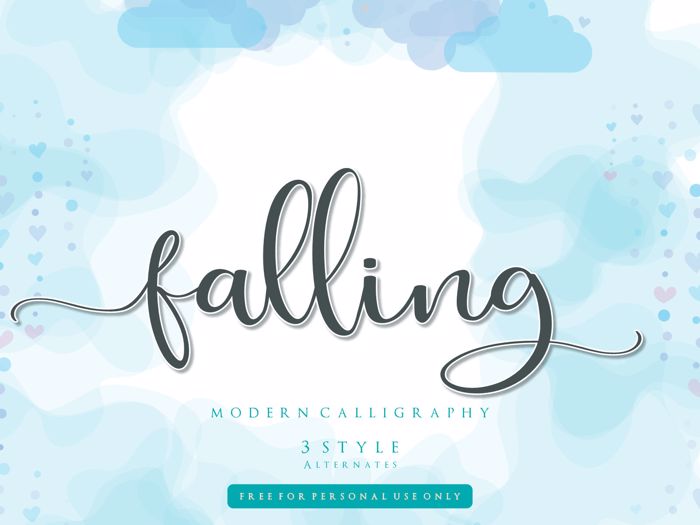
falling for Font
Falling is a cute and bouncy handwritten font with an incredibly friendly feel. It features gorgeous swashes and ligatures that make this script incredibly versatile. Whether you’re looking for fonts for Instagram or calligraphy scripts for DIY projects,Falling will turn any creative idea into a true piece of art!